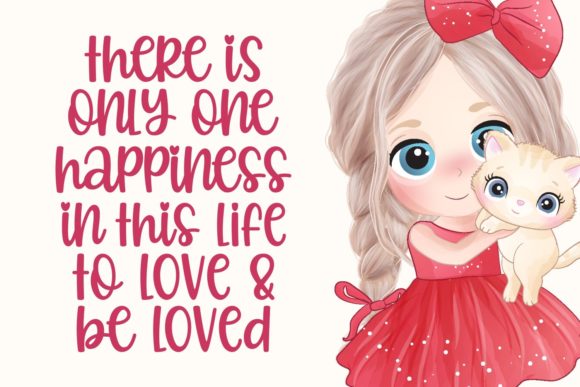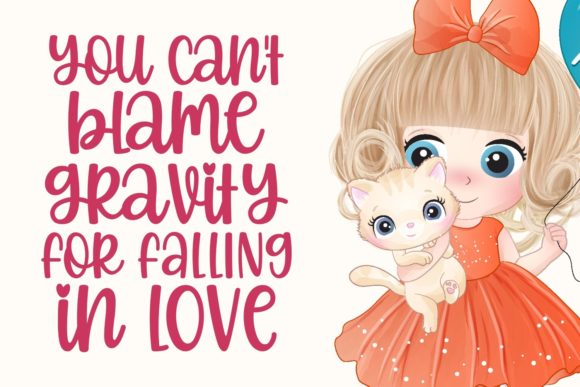
Introducing Hello Aurel Font: The Ultimate Addition to Your Design Arsenal
Are you tired of using the same old fonts in your designs? Do you want to add a touch of youth and joy to your party invitations, gatherings, or any other design project? Look no further than Hello Aurel Font! This chic, playful, and fun handwritten font is the perfect addition to your design arsenal.
What Makes Hello Aurel Font So Special?
Hello Aurel Font is a beautifully crafted handwritten font that exudes playfulness and fun. Its unique and elegant design makes it perfect for a wide range of design projects, from party invitations and social media graphics to branding and packaging. The font is PUA encoded, which means you can easily access all of the amazing glyphs and ligatures with ease!
Key Features of Hello Aurel Font
- PUA Encoded: The font is PUA encoded, making it easy to access all of the glyphs and ligatures.
- Handwritten Design: The font features a beautiful handwritten design that adds a touch of personality to your designs.
- Playful and Fun: The font is perfect for designs that require a playful and fun touch.
- Chic and Elegant: The font’s elegant design makes it perfect for a wide range of design projects.
Use Cases for Hello Aurel Font
Hello Aurel Font is versatile and can be used for a wide range of design projects, including:
- Party Invitations: Add a touch of fun and playfulness to your party invitations with Hello Aurel Font.
- Gatherings: Use the font to create eye-catching invitations for gatherings, events, and meetings.
- Social Media Graphics: Add a personal touch to your social media graphics with Hello Aurel Font.
- Branding and Packaging: Use the font to create unique and eye-catching branding and packaging designs.
Why Designers and Crafters Love Hello Aurel Font
Designers and crafters love Hello Aurel Font for its unique and playful design. The font’s handwritten style adds a personal touch to designs, making them stand out from the crowd. The font’s PUA encoding also makes it easy to use and access all of the glyphs and ligatures.
Tips for Using Hello Aurel Font
Here are some tips for using Hello Aurel Font in your designs:
- Pair it with Other Fonts: Pair Hello Aurel Font with other fonts to create a unique and eye-catching design.
- Use it for Headings: Use Hello Aurel Font for headings and titles to add a touch of personality to your designs.
Hello Aurel Font is a must-have font for designers and crafters who want to add a touch of youth and joy to their designs. Its unique and playful design, PUA encoding, and versatility make it perfect for a wide range of design projects. Whether you’re creating party invitations, social media graphics, or branding and packaging designs, Hello Aurel Font is the perfect addition to your design arsenal.